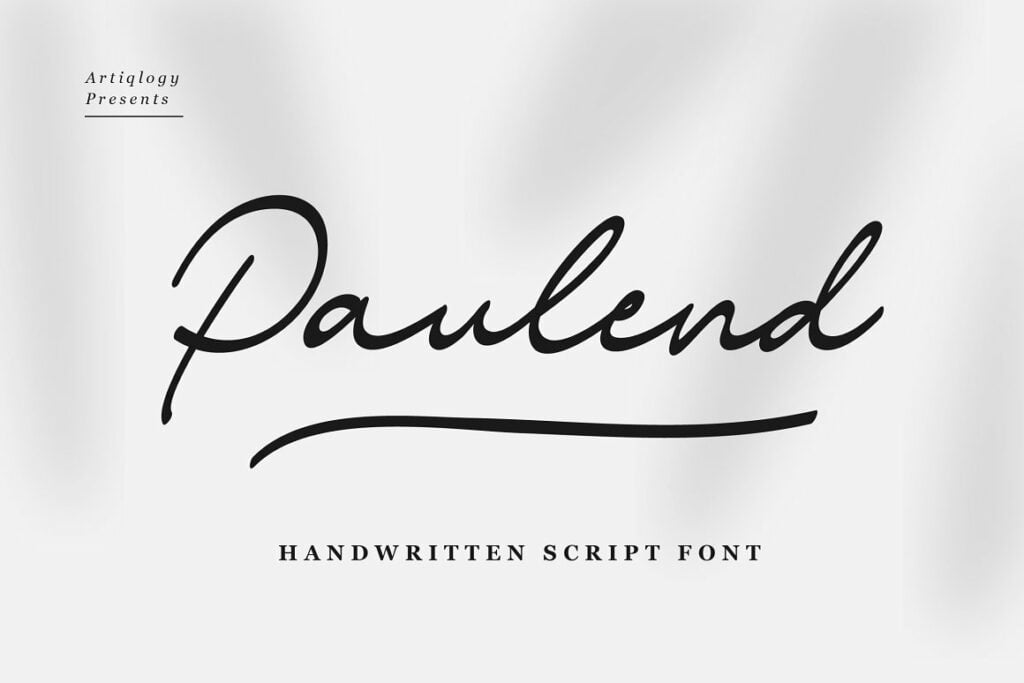
Paulend Font
Paulend is a unique and elegant handwritten font. It looks beautiful on a variety of designs requiring a personalized style, such as wedding invitations, thank you cards, weddings, greeting cards, logos and so on.
Paulend Handwritten Script Font